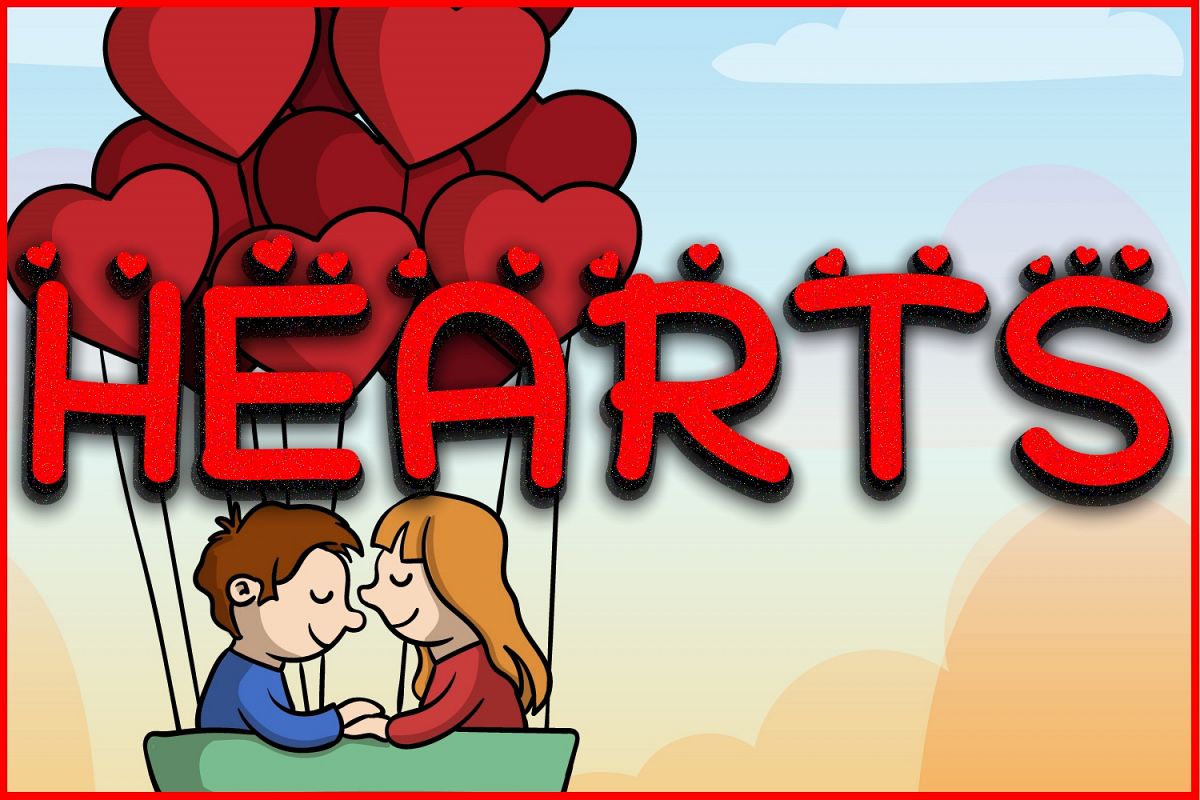
Hearts - A Font Love Story
Looking for Heart Shape Premium Font Well, we have an amazing design just made for you. This Font can be used for many projects specially for loved ones, crafts material and more! Just type anything you like.